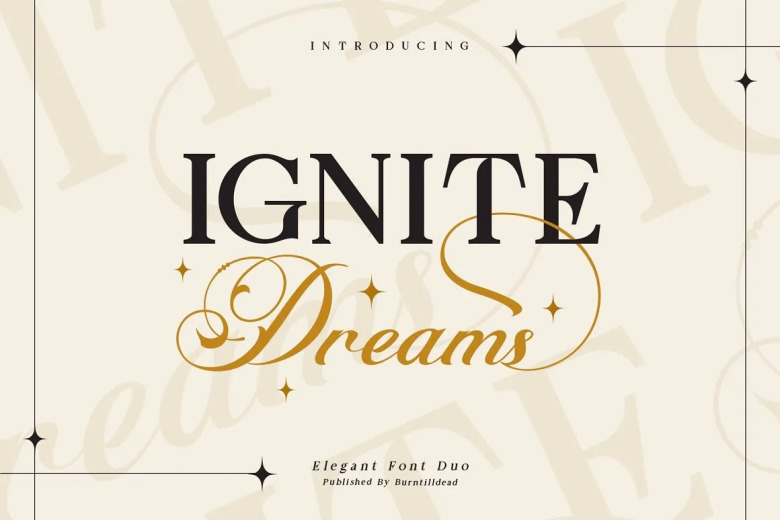
Ignite Dreams Font
Ignite Dreams Font Duo a fancy serif and script font. With a modern elegant serif font and a stylish script font. Easy to use for your design projects, including logos & branding, wedding designs, social media posts, advertisements & product designs.
Ignite Dreams Font Duo